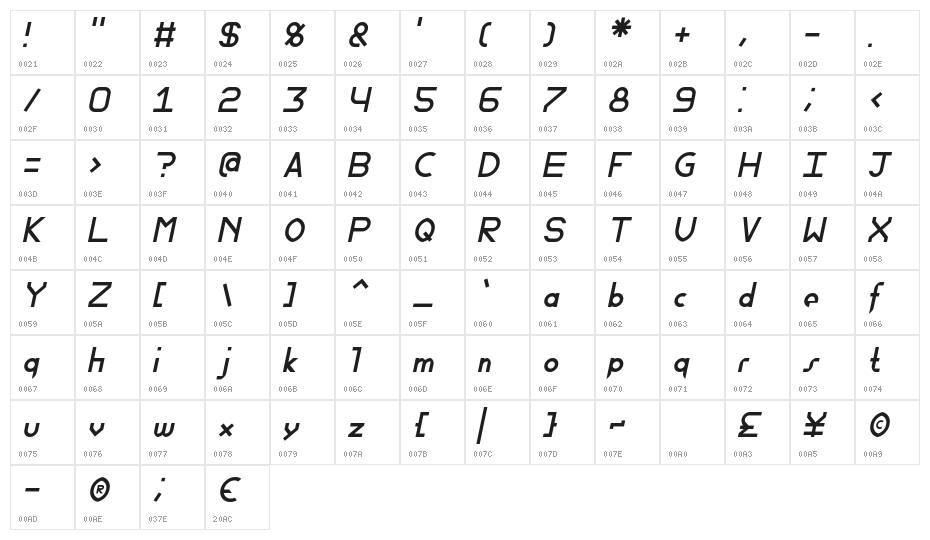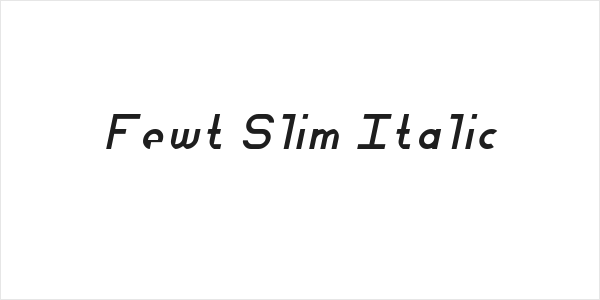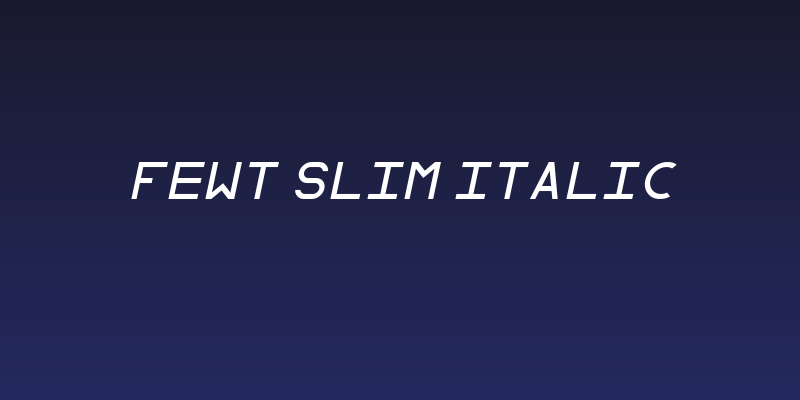
Fewt Slim Italic Font
Fewt Slim Italic Description
This font features a sleek and modern italic style, characterized by its slim and slightly slanted letterforms. The uppercase and lowercase letters maintain a consistent stroke width, offering a clean and streamlined appearance. The numerals are distinct and easy to read, while the special characters are well-integrated, maintaining the font's overall aesthetic. The design is minimalistic yet stylish, making it suitable for contemporary applications. Its italic nature adds a dynamic and forward-moving feel, perfect for projects that require a touch of elegance and modernity.
| Proposed Projects | Ideal for branding, advertising, modern web design, and editorial layouts. |